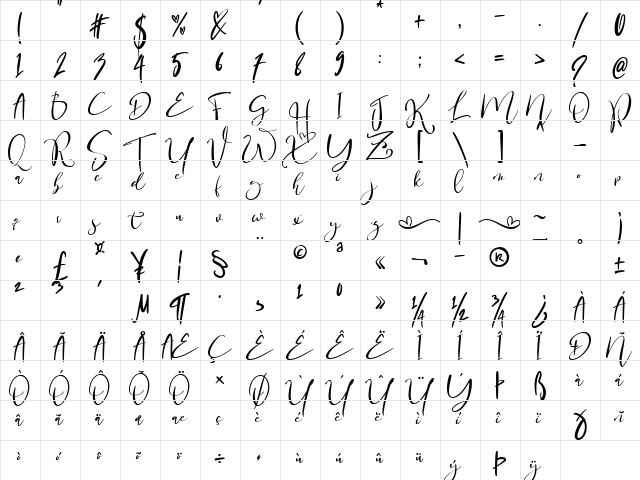
Romance Privilege Regular Font Preview
Romance Privilege Regular
Romance Privilege Regular Font Details
| Designer | Noftanti Studio 2020 (Ike Nof Tanti) |
Design Context for Romance Privilege Typeface
Romance Privilege is a composed and adaptable typeface that performs quietly and consistently across a wide range of design contexts.